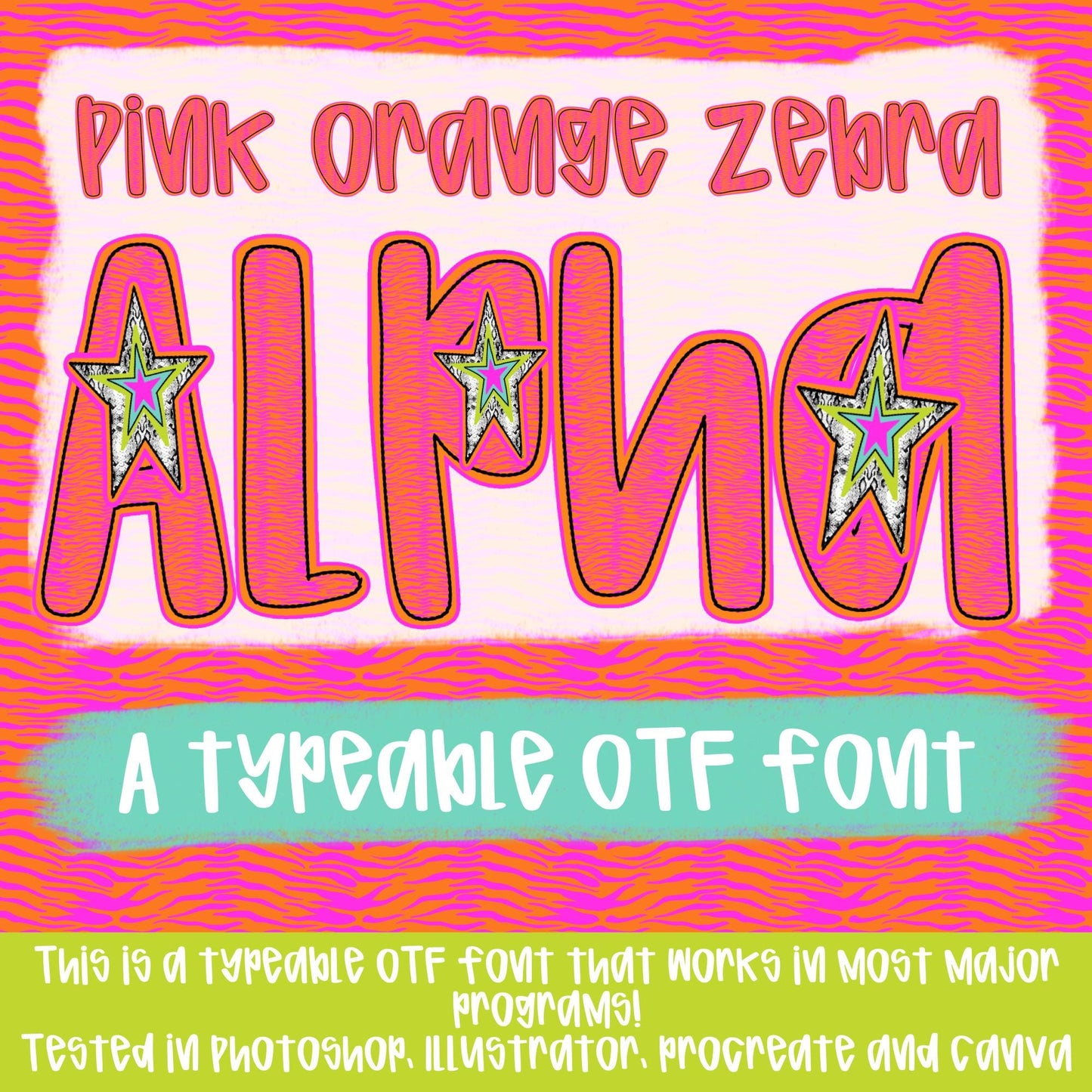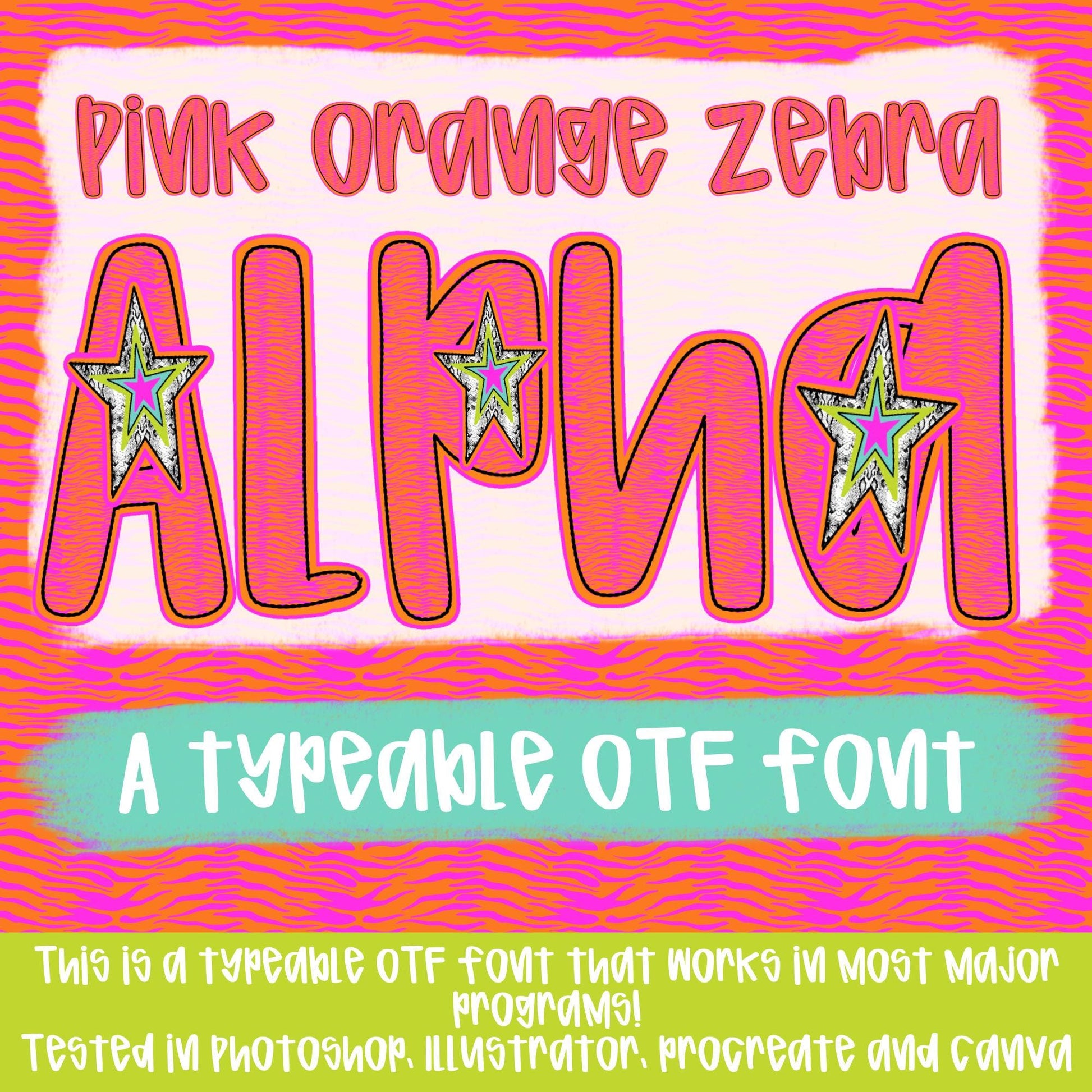
Pink Orange Zebra Alpha | Typeable Font | Sublimation Design | Digital Download | Women’s, Kids Shirt PNG
-1 STAR that can be used and placed wherever you want! You can use it by typing a . and the star will appear!